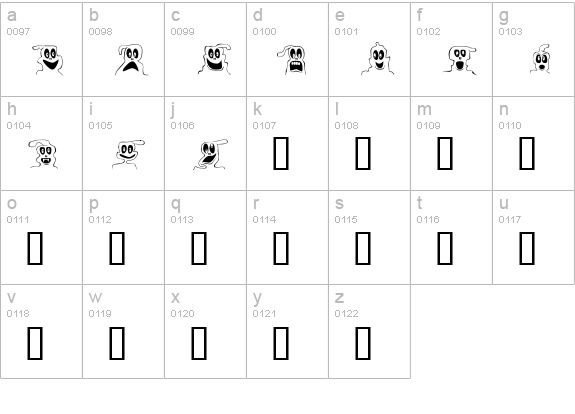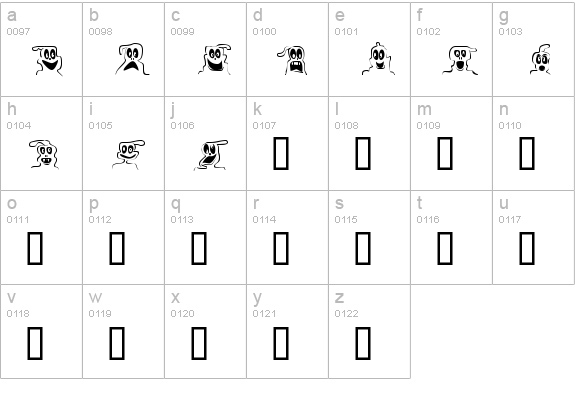
10 Lil Ghosts Font Details
Introducing the enchanting and whimsical 10 Lil Ghosts font, a charming typeface that will add a touch of spooky fun to your projects. This font features ten adorable little ghost characters, each with its own unique personality and style. Perfect for Halloween-themed designs, children's projects, or any creative endeavor that could use a playful and lighthearted touch. What's even better is that the 10 Lil Ghosts font is completely free to download! You can easily access this delightful font at FontsMarket.com and bring a ghostly charm to your designs without any cost. Embrace the spirit of fun and creativity with the 10 Lil Ghosts font today!